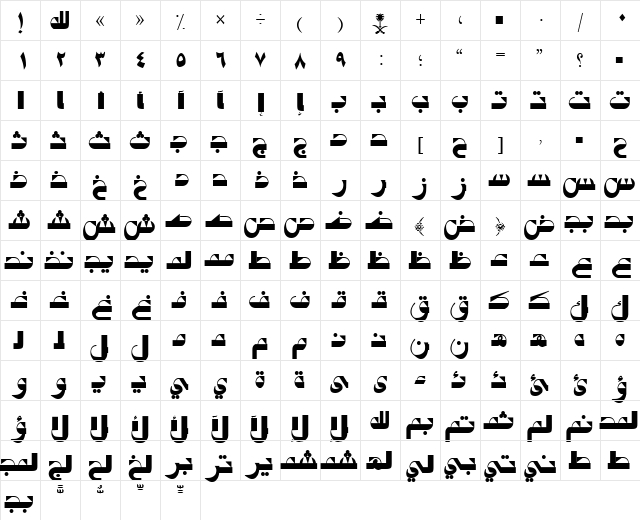
AYM Tabuk S_U normal. Normal Font Preview
AYM Tabuk S_U normal. Normal
Design Context for AYM Tabuk S_U normal. Typeface
AYM Tabuk S_U normal. is a composed and adaptable typeface that performs quietly and consistently across a wide range of design contexts.